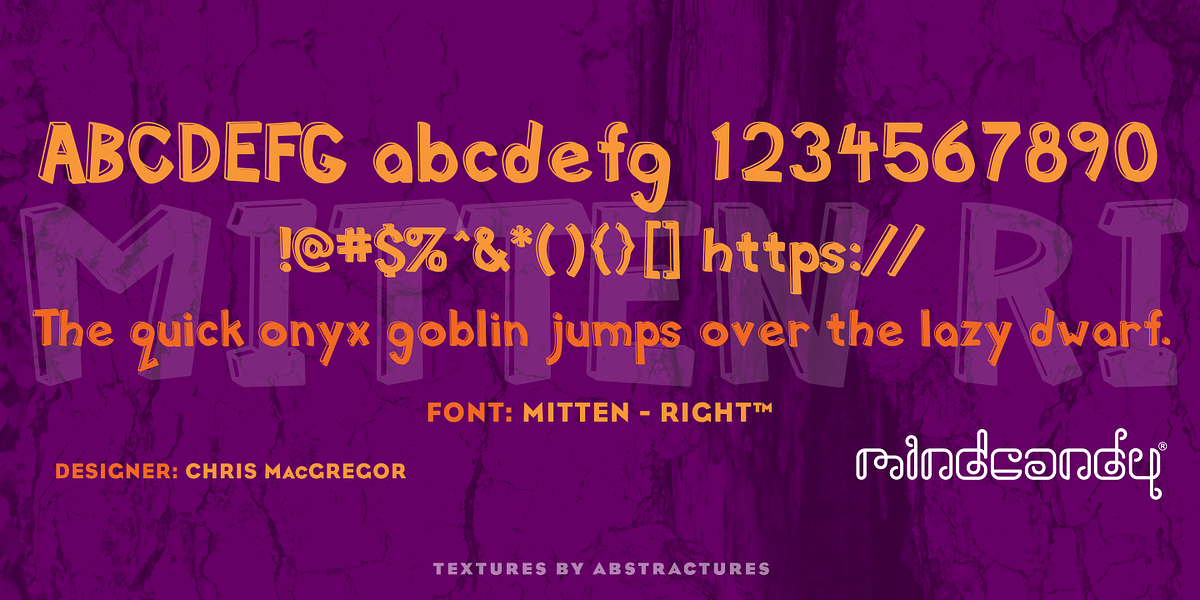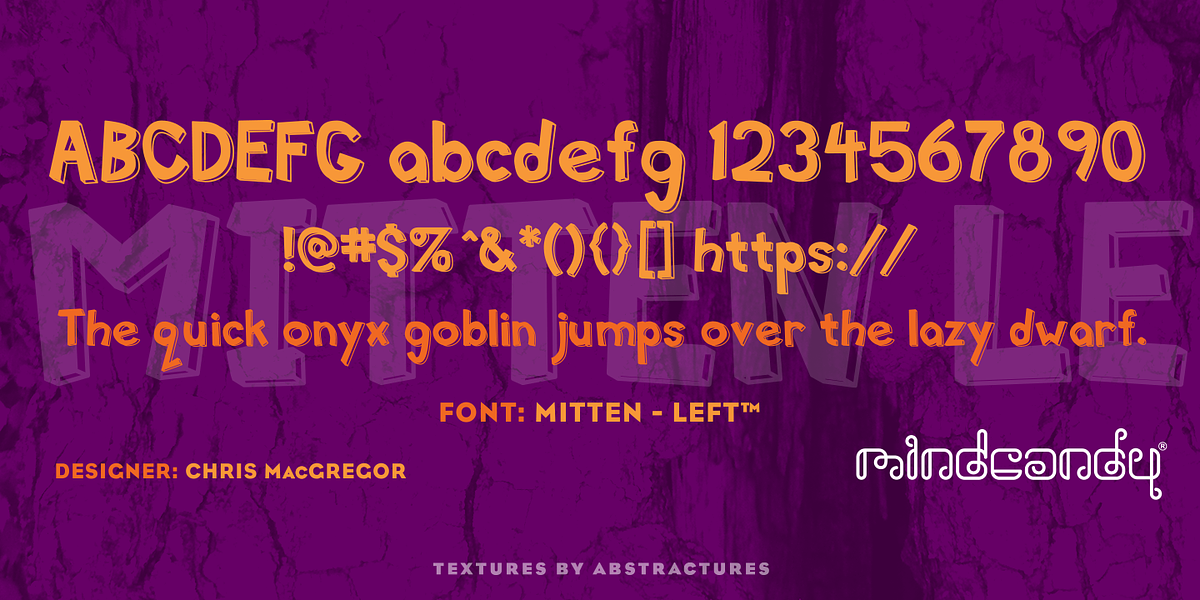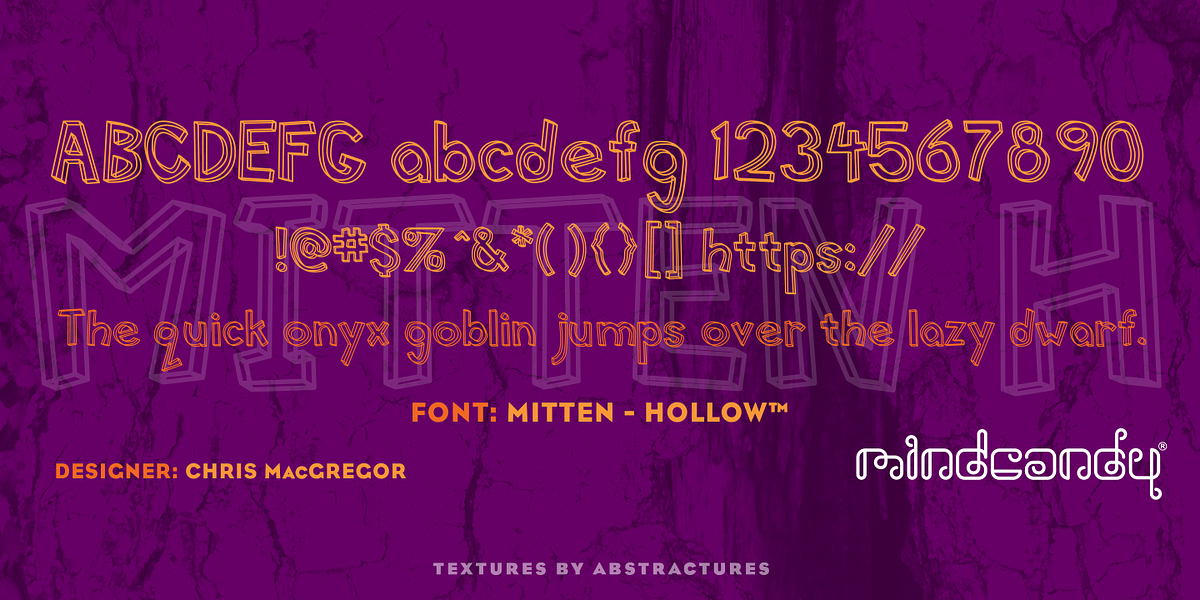
Mitten™
This hand-drawn font features a bouncy, three-dimensional style that is ideal for projects targeting children. Its playful nature makes it suitable for branding, children's books, and posters.